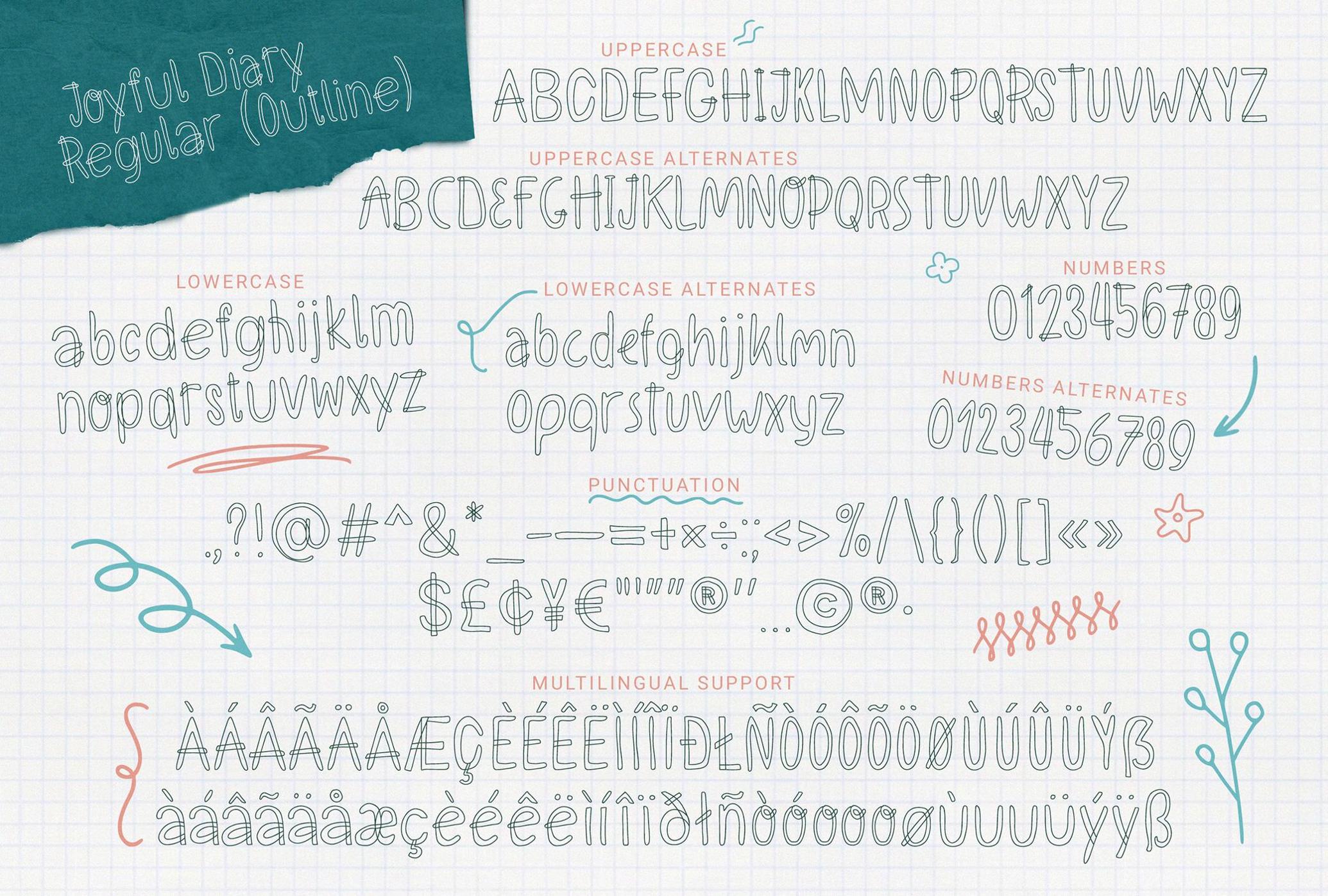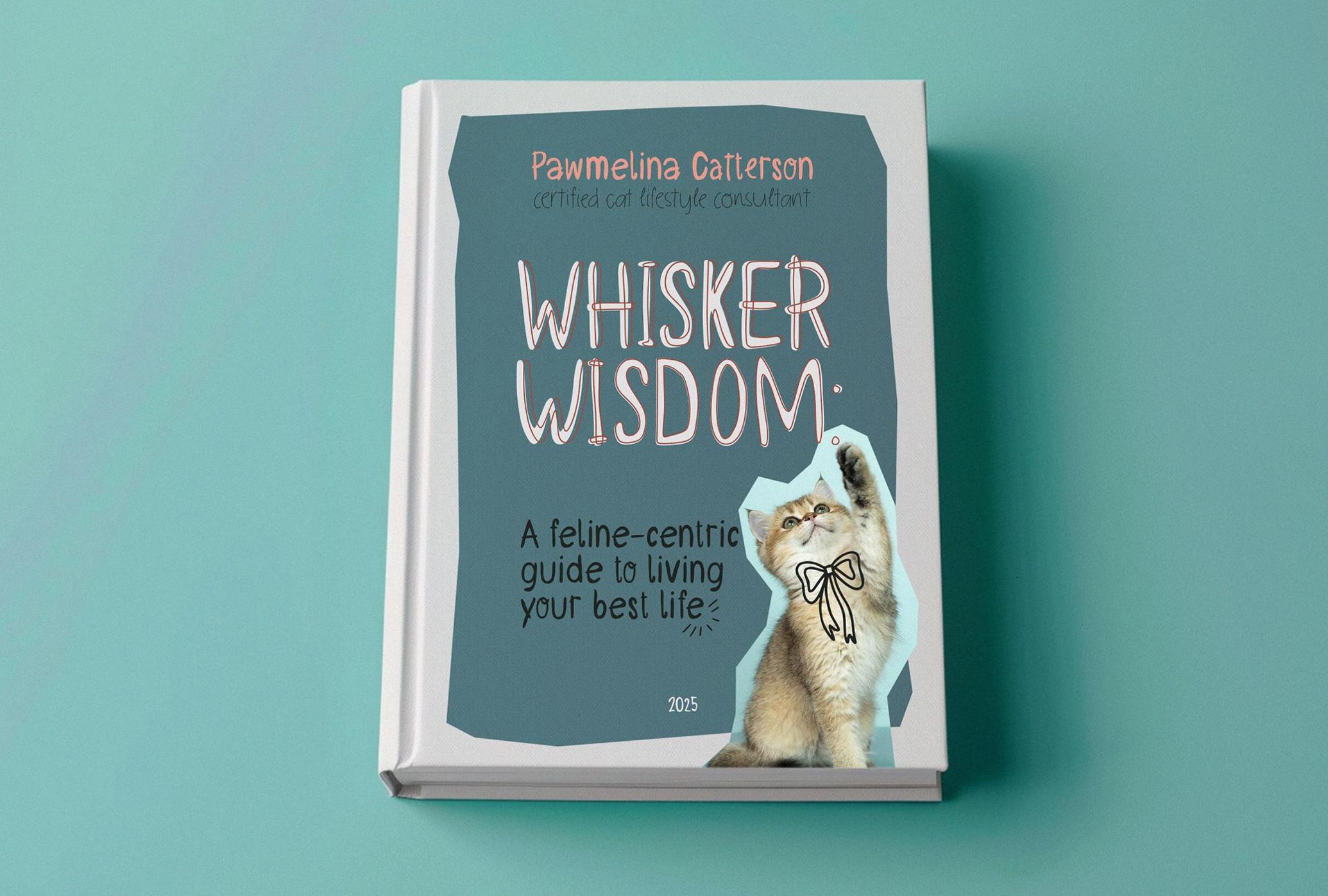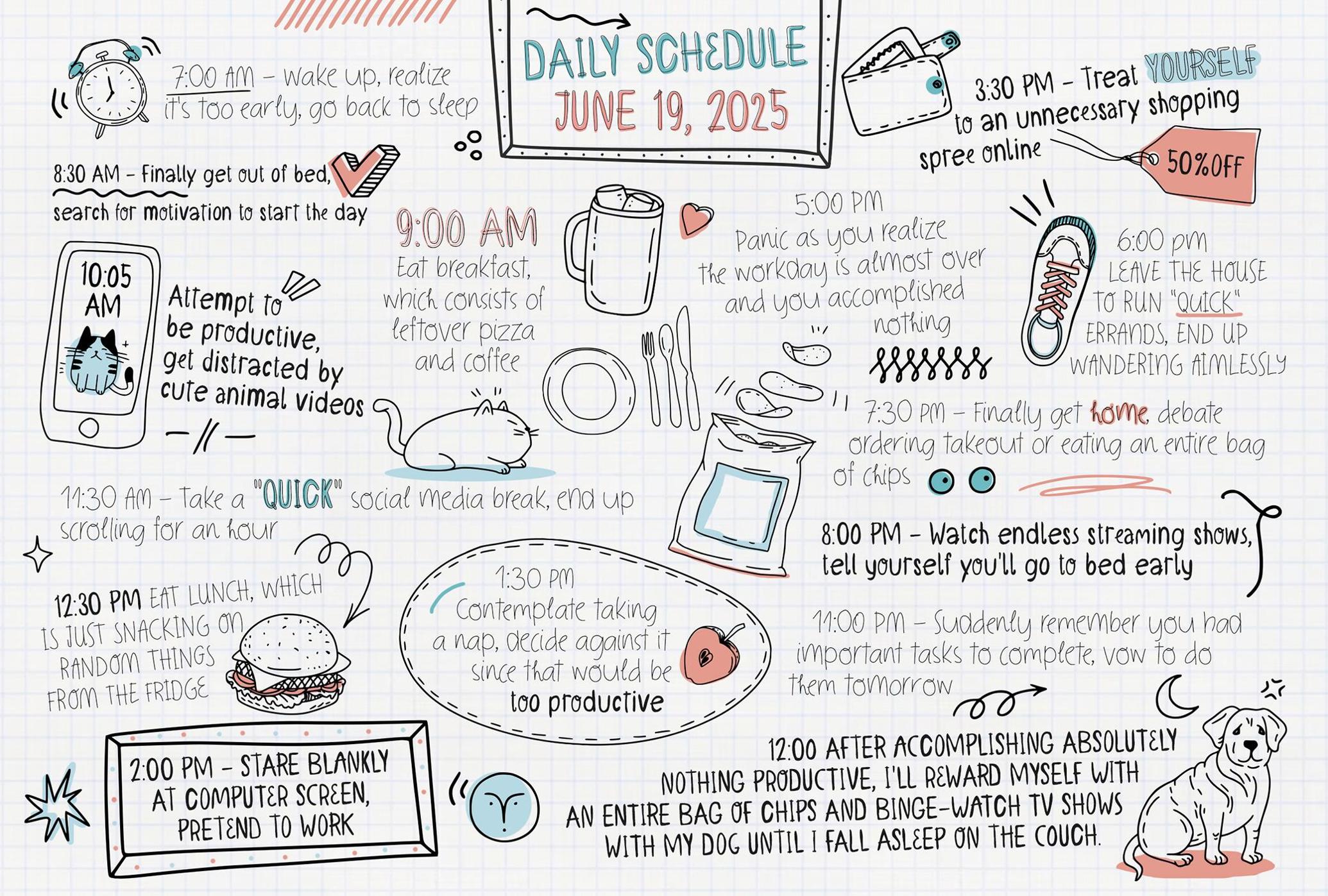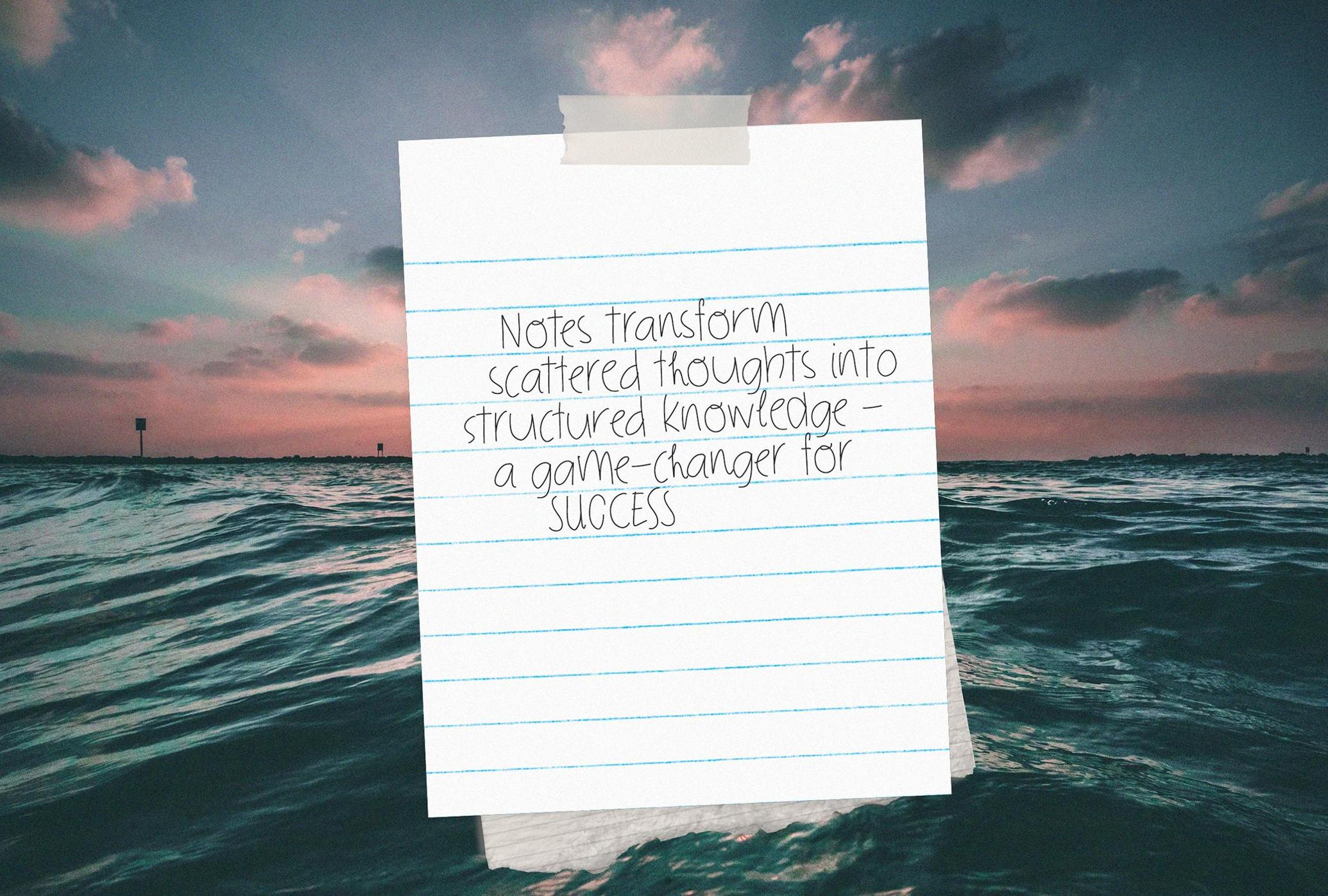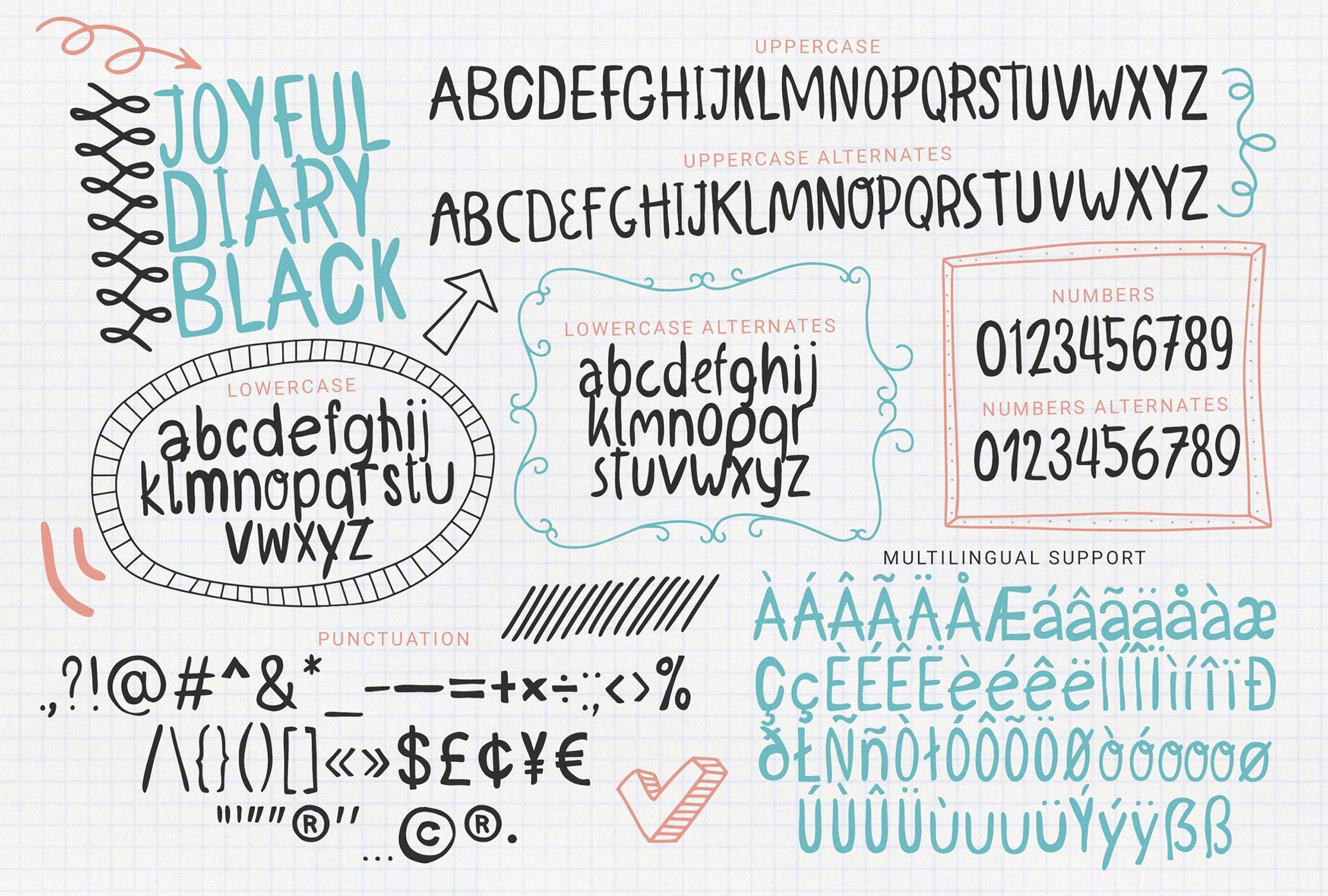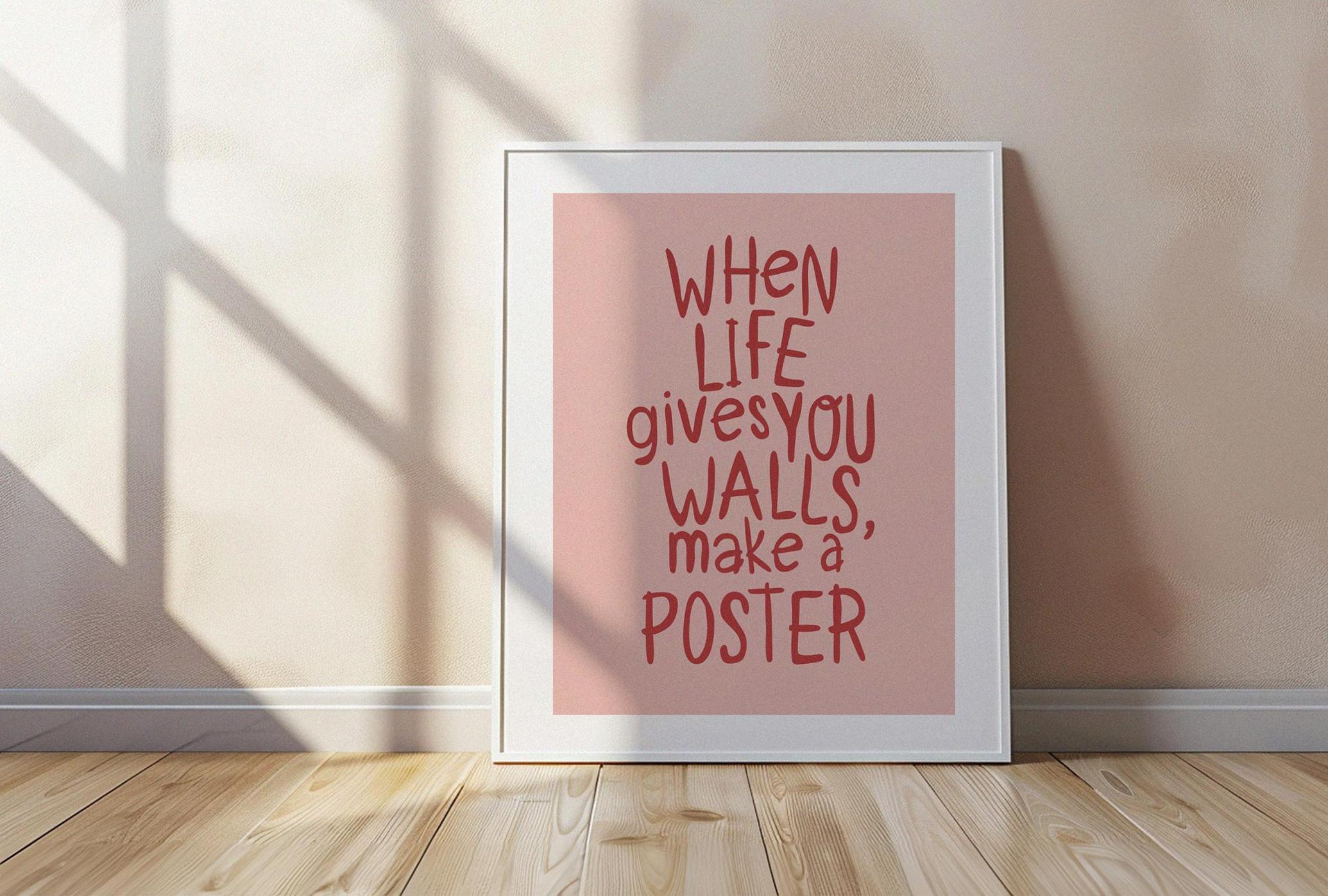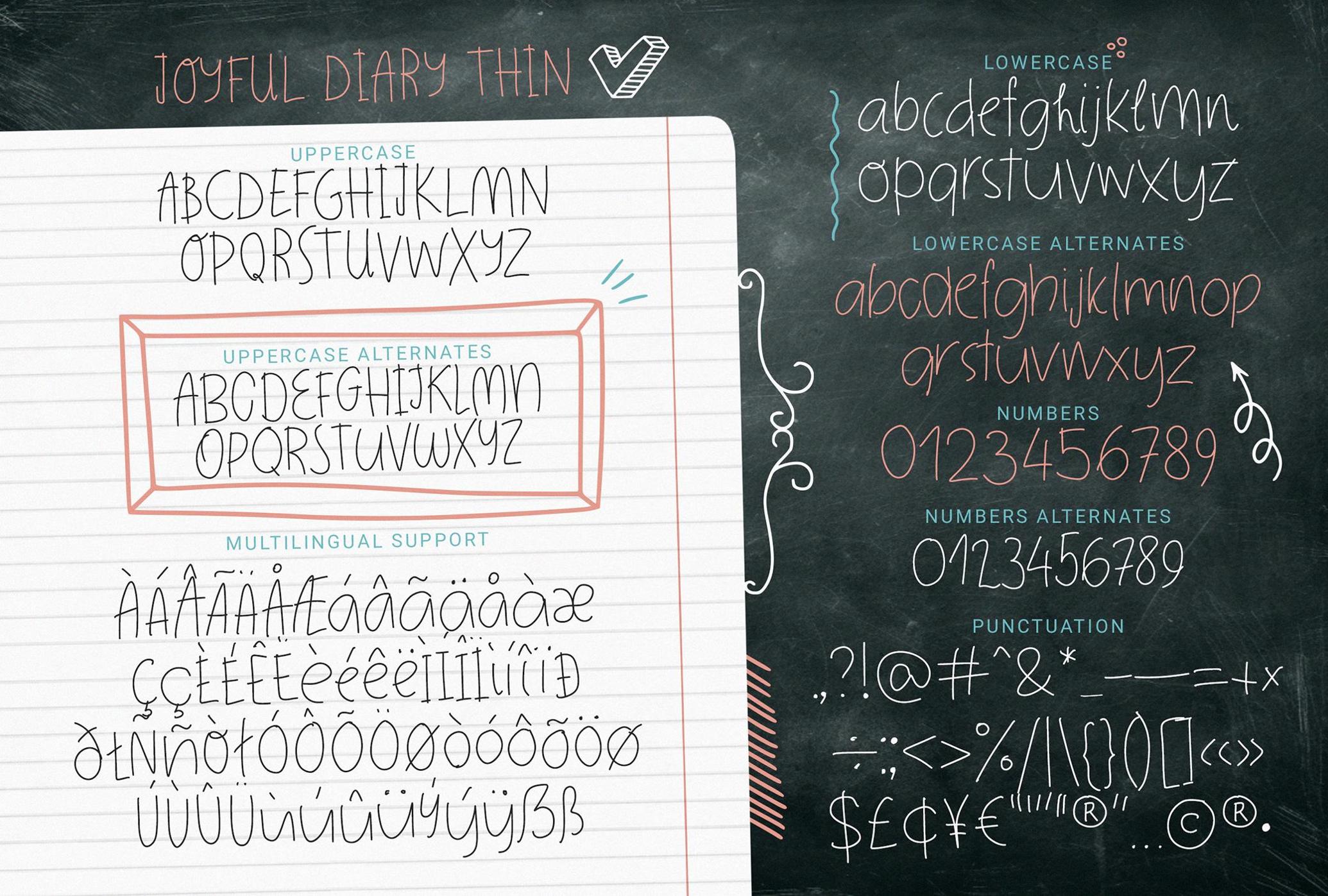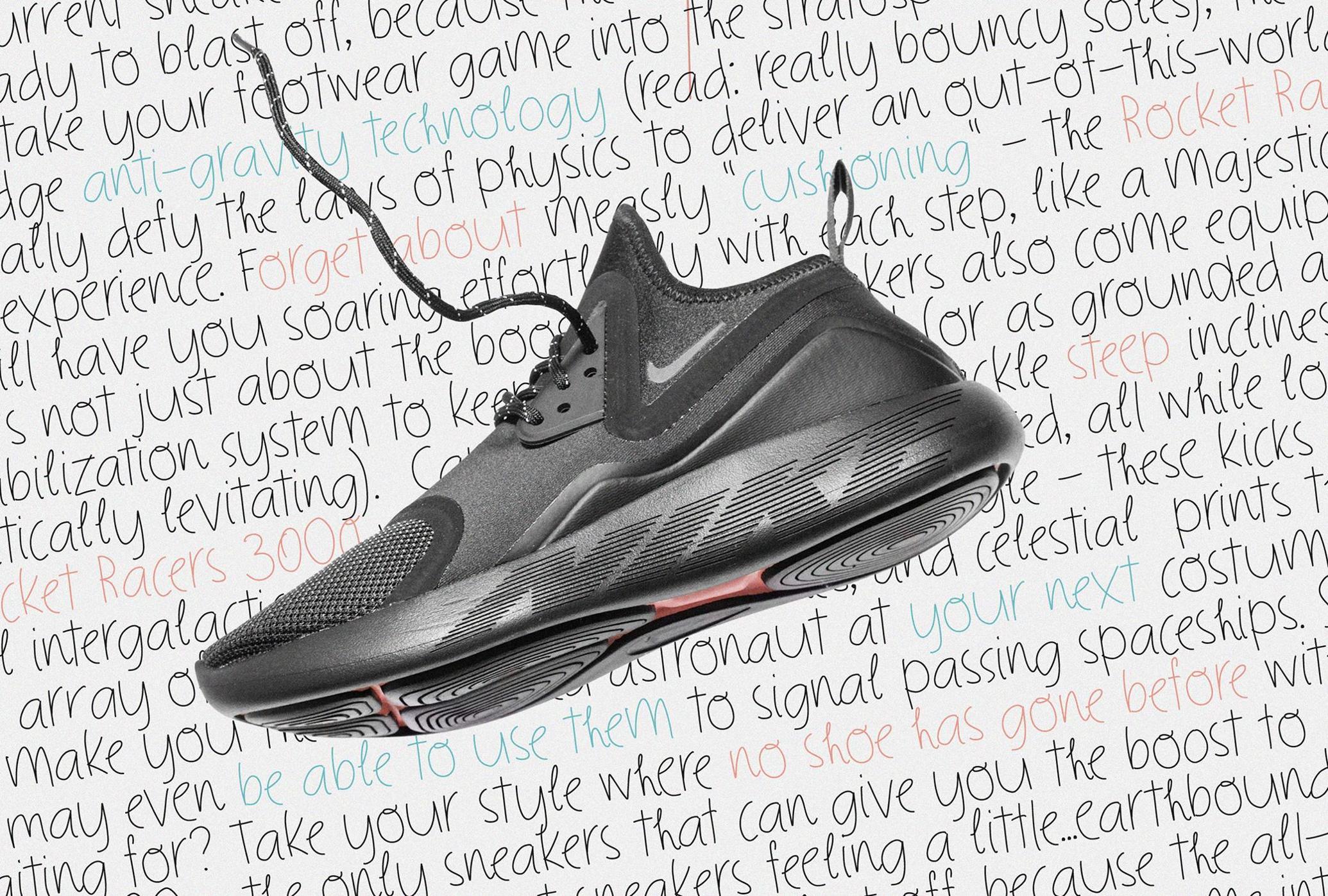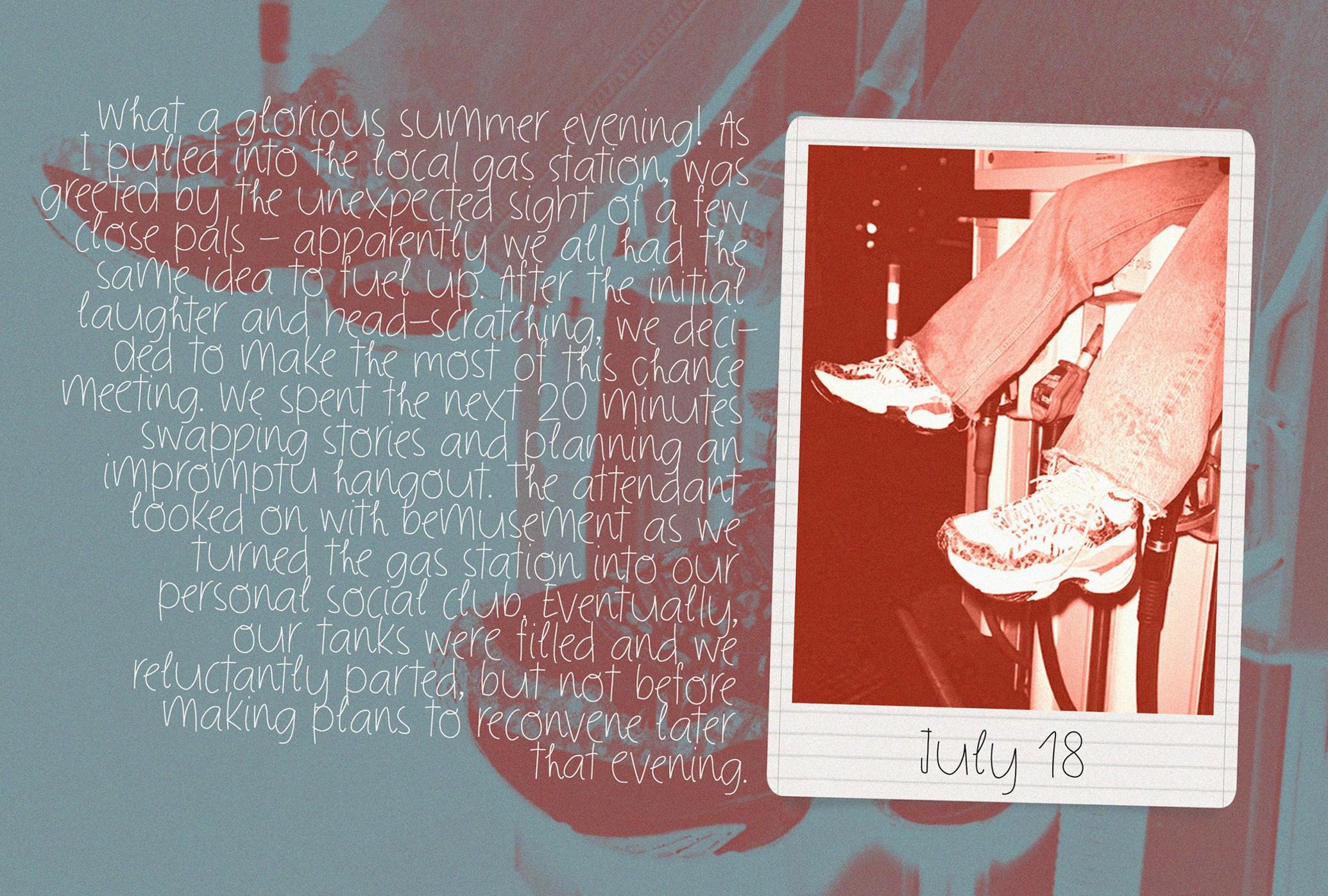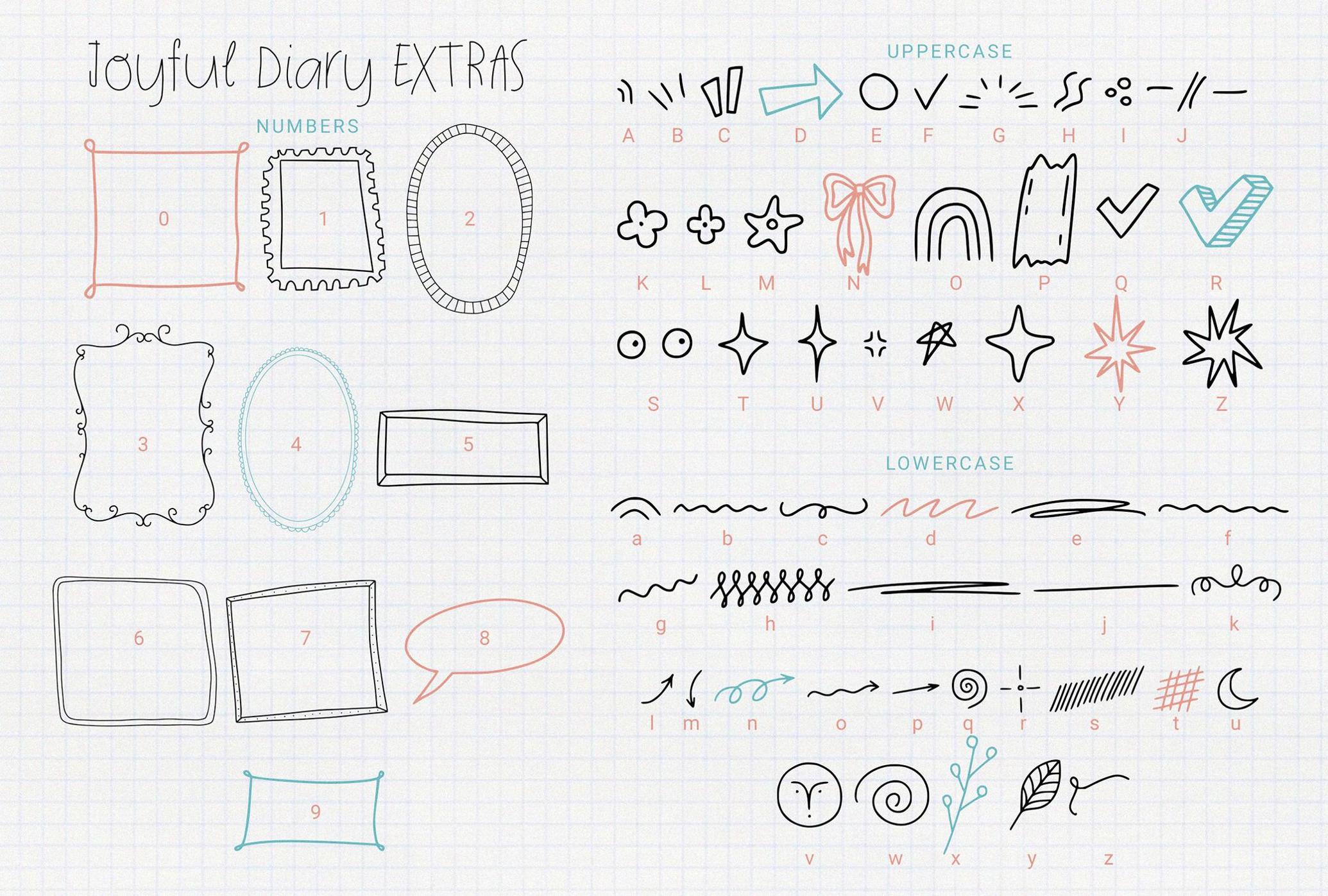
Joyful Diary | Playful Handwritten Font Trio
The Joyful Diary scribbles, doodles, doubles back on itself — and somehow pulls it all off with charm. This handwritten font trio brings a playfulness to the page, complete with a bonus extras set: arrows, icons, and squiggles.
• Regular style: outlines every letter with a wireframe sketchiness that feels lifted from a notebook margin.
• Black style: tones things up for bold headlines and signage.
• Thin style: captures rushed, halfway-through-my-to-do-list handwriting energy.